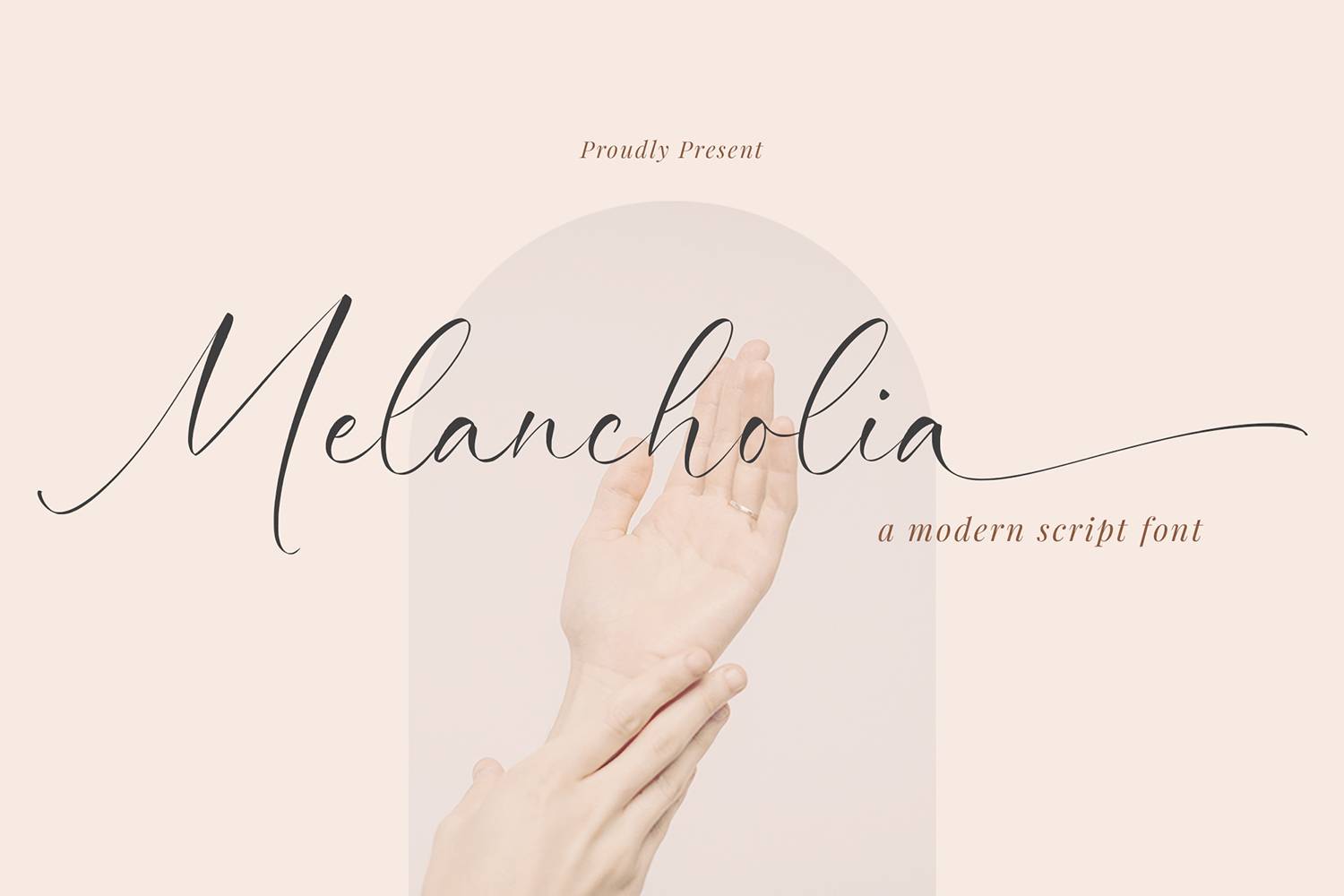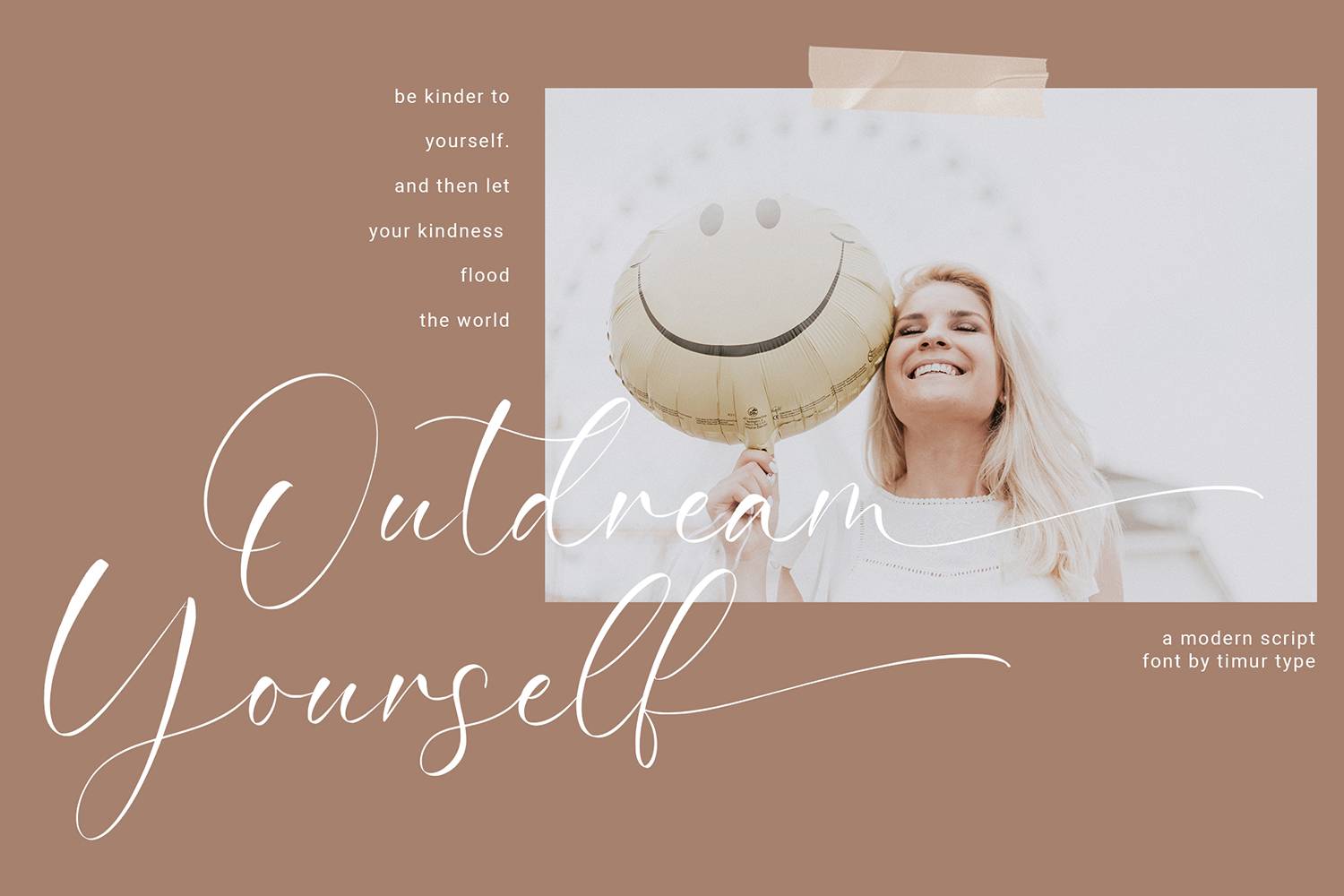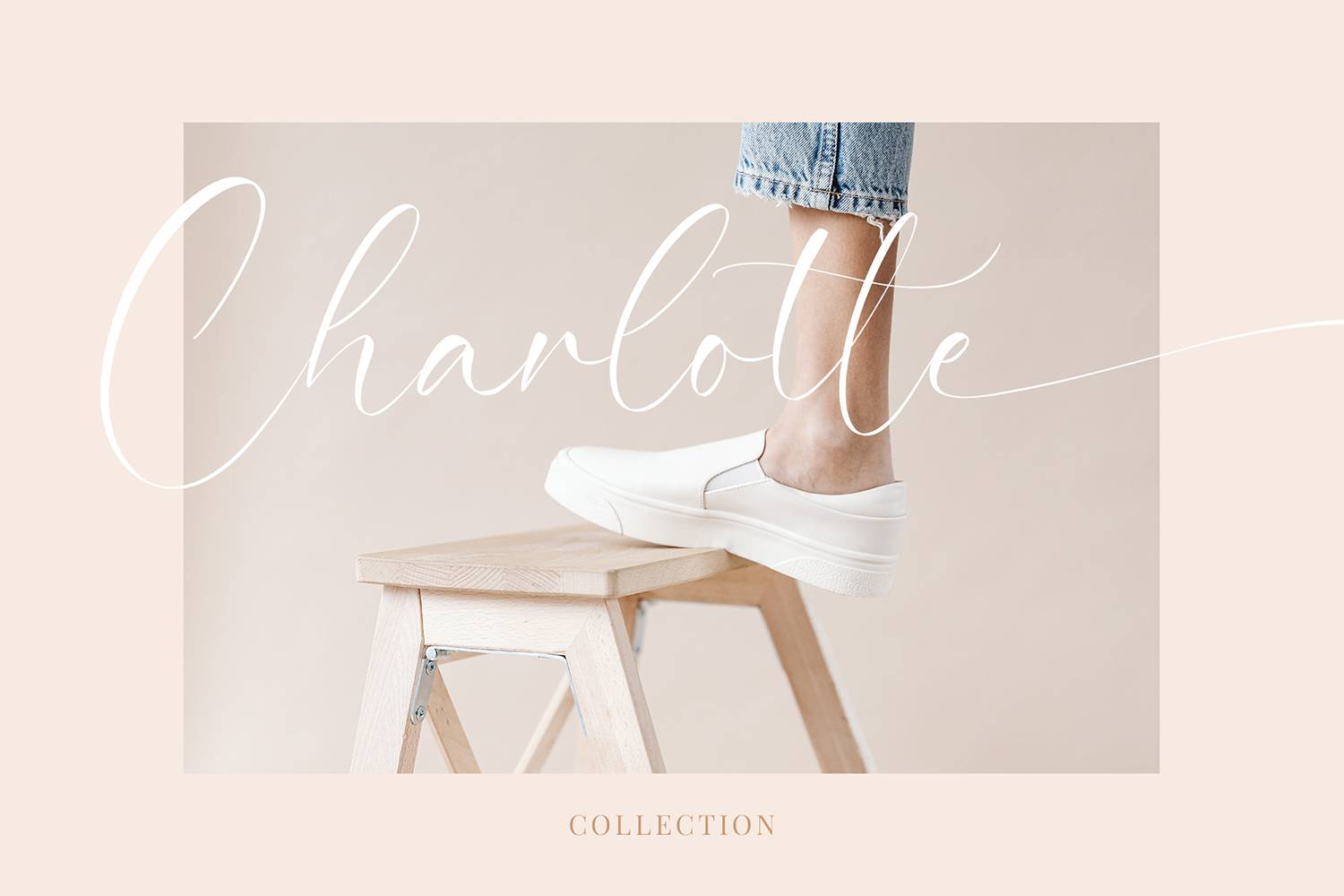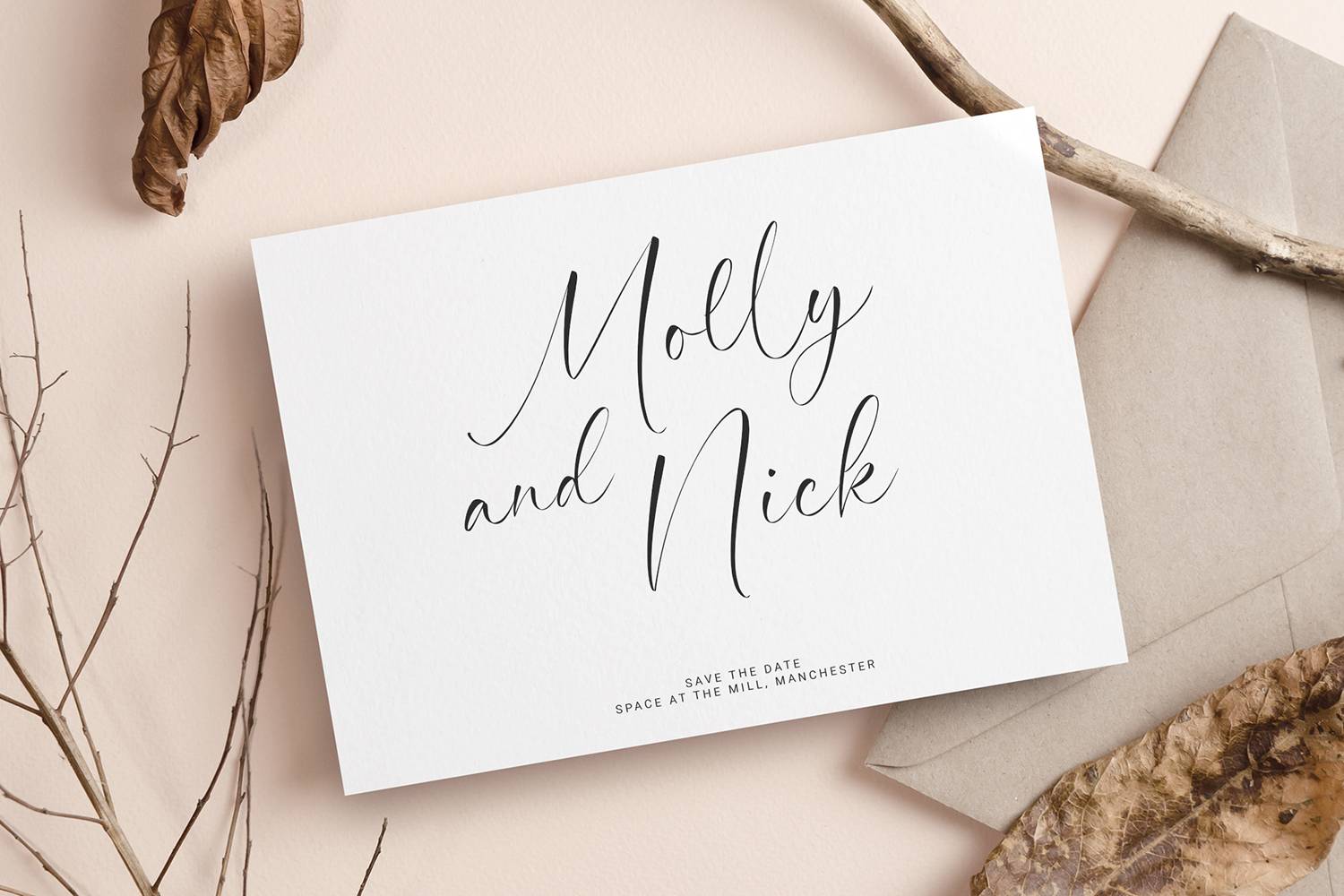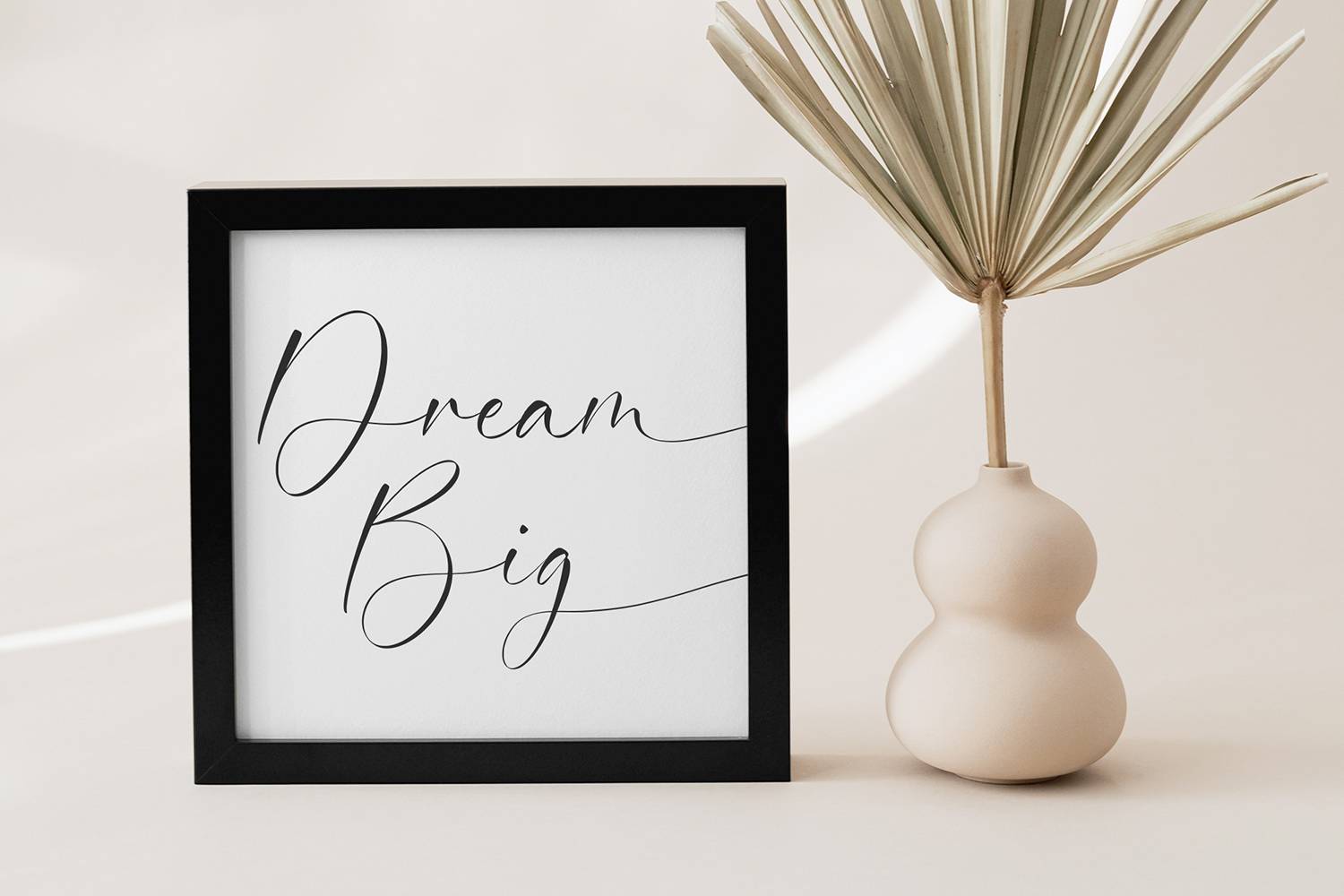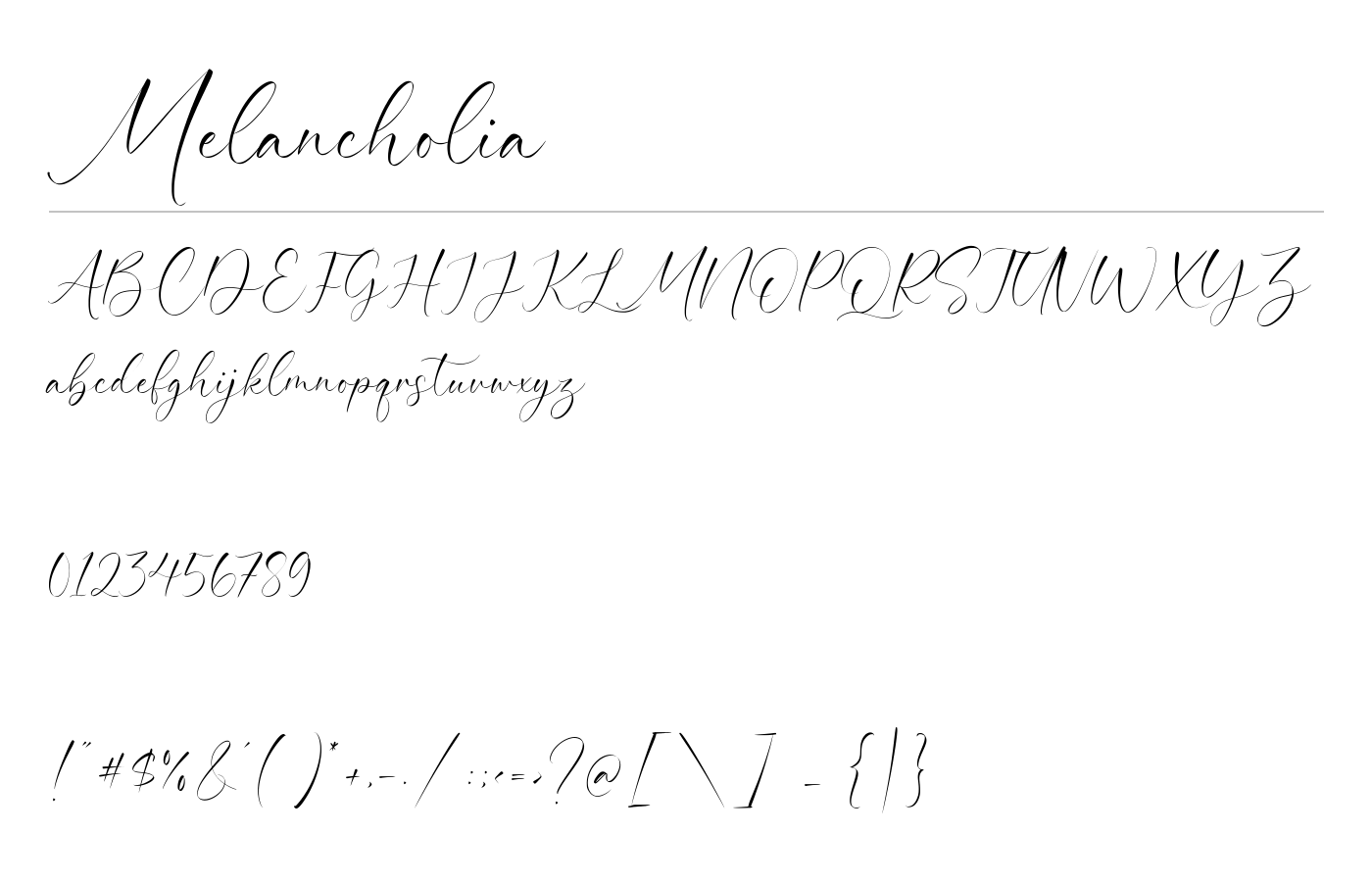
Melancholia is an elegant and delicate script font characterized by its thin, flowing strokes and graceful curves, giving it a refined and handwritten feel. Its slender letterforms and gentle swashes make it ideal for sophisticated branding, wedding invitations, and stylish editorial projects where a touch of romance and subtle luxury is desired. This font beautifully combines charm with readability, making it perfect for use in headlines or decorative text that aims to convey elegance and emotion.
Melancholia Font
About Melancholia Font